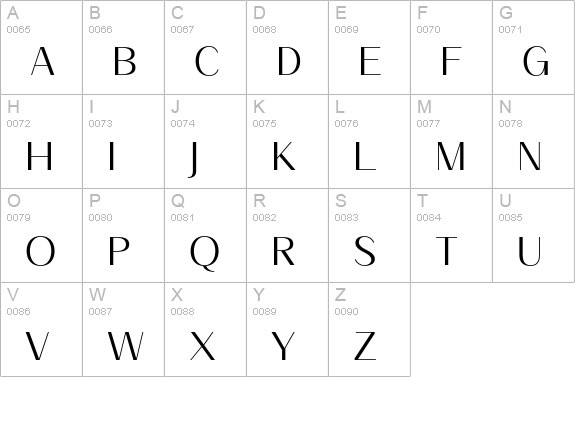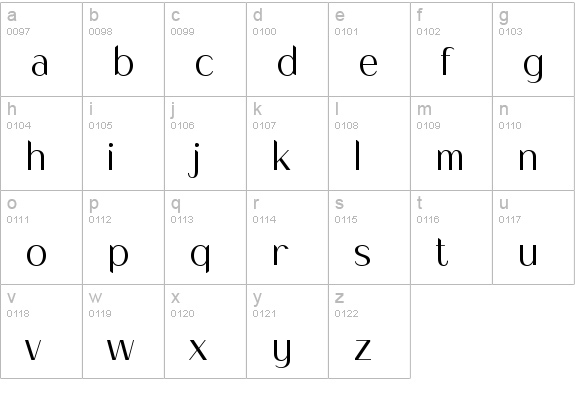
Impana Font Details
Impana is a demo font in the General > Sans-Serif category, designed by craftsupplyco. It has been downloaded 72 times and is available for Windows, Mac and Linux.
Impana font is a stunning typeface that exudes elegance and sophistication. With its modern yet timeless design, Impana is perfect for adding a touch of class to your projects. The font features sleek lines and a unique style that will make your text stand out beautifully.